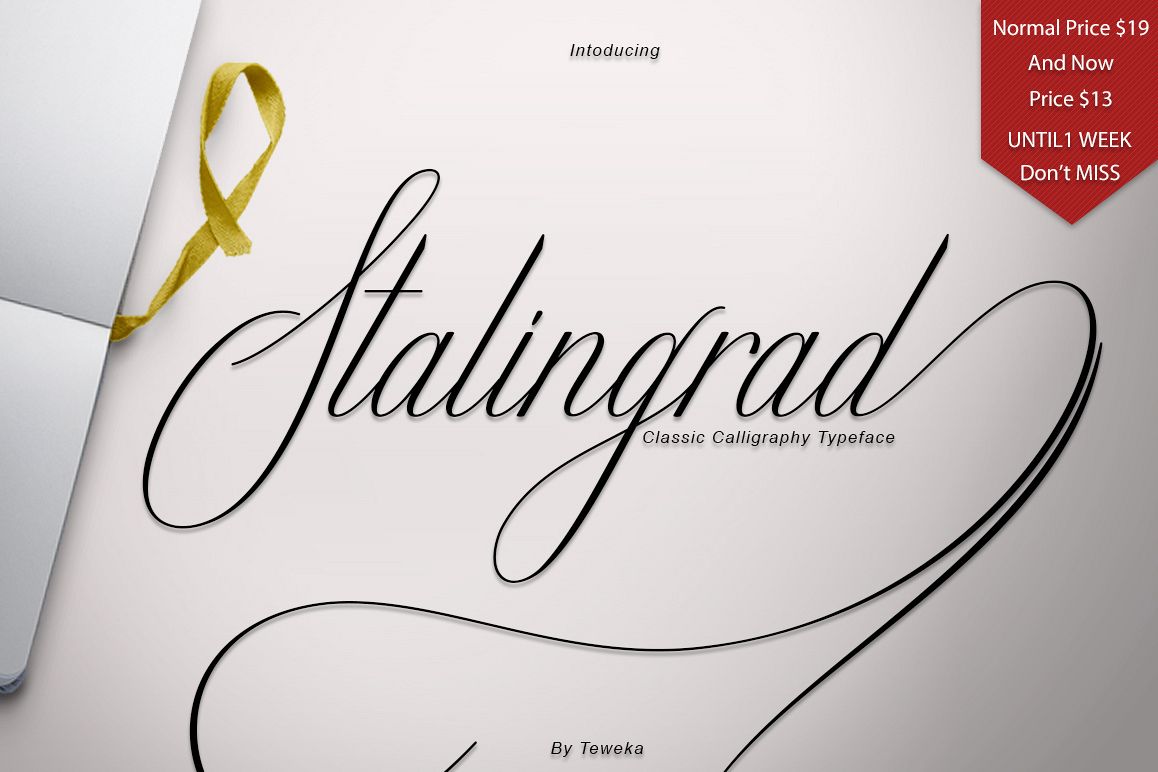
Stalingrad Classic Calligraphy
Staligard
NEW ! Stalingrad Script. It's an Classic typeface. Stalingrad Script, including swashes, ligatures,Alternate and International support for most Western Languages is included.Stalingrad come with 365 glyphsThis one should make your designs instantly professional and jaw-dropping! Be a perfect professional in a minute and start creating modern designs like ads, sales, logos, branding, posters, social media text overlays today!The ZIP file are include the following :